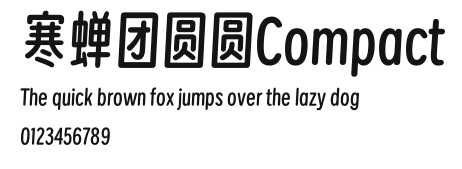
• Font Name: 寒蝉团圆圆Compact
• Full Font Name: 寒蝉团圆圆Compact Medium
• Designer: 寒蝉字型
About 寒蝉团圆圆Compact.otf
寒蝉团圆圆Compact.otf is a modern, elegant sans-serif font designed for ultimate readability and visual harmony. Perfect for branding, headlines, web design, and print materials.